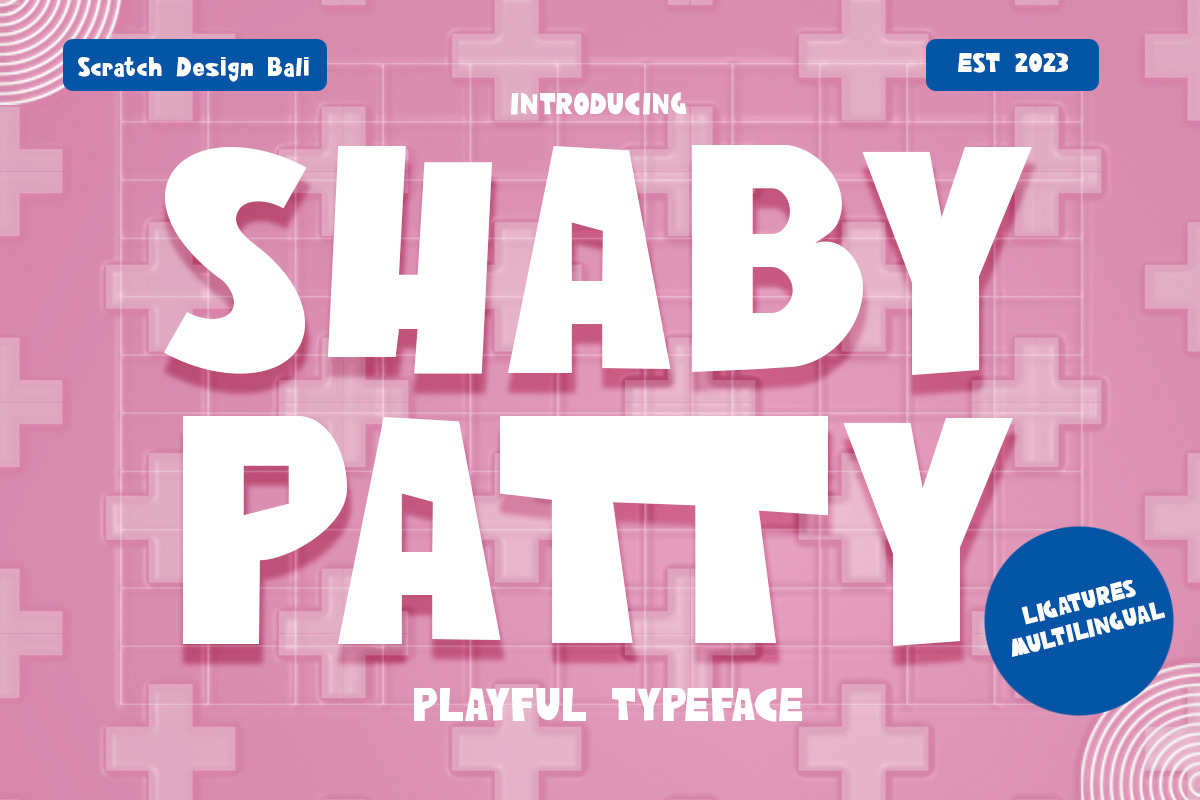
Shabby Patty - Playful font
Shabby Patty is a playful, cheerful and cute font are ready to accompany your design projects. This font also has retro and vintage characteristic that perfect for 90s design. This font will be perfect for quotes, cover designs, merchandise, posters, creative posts, birthday cards, packagings, logos, labels and more.